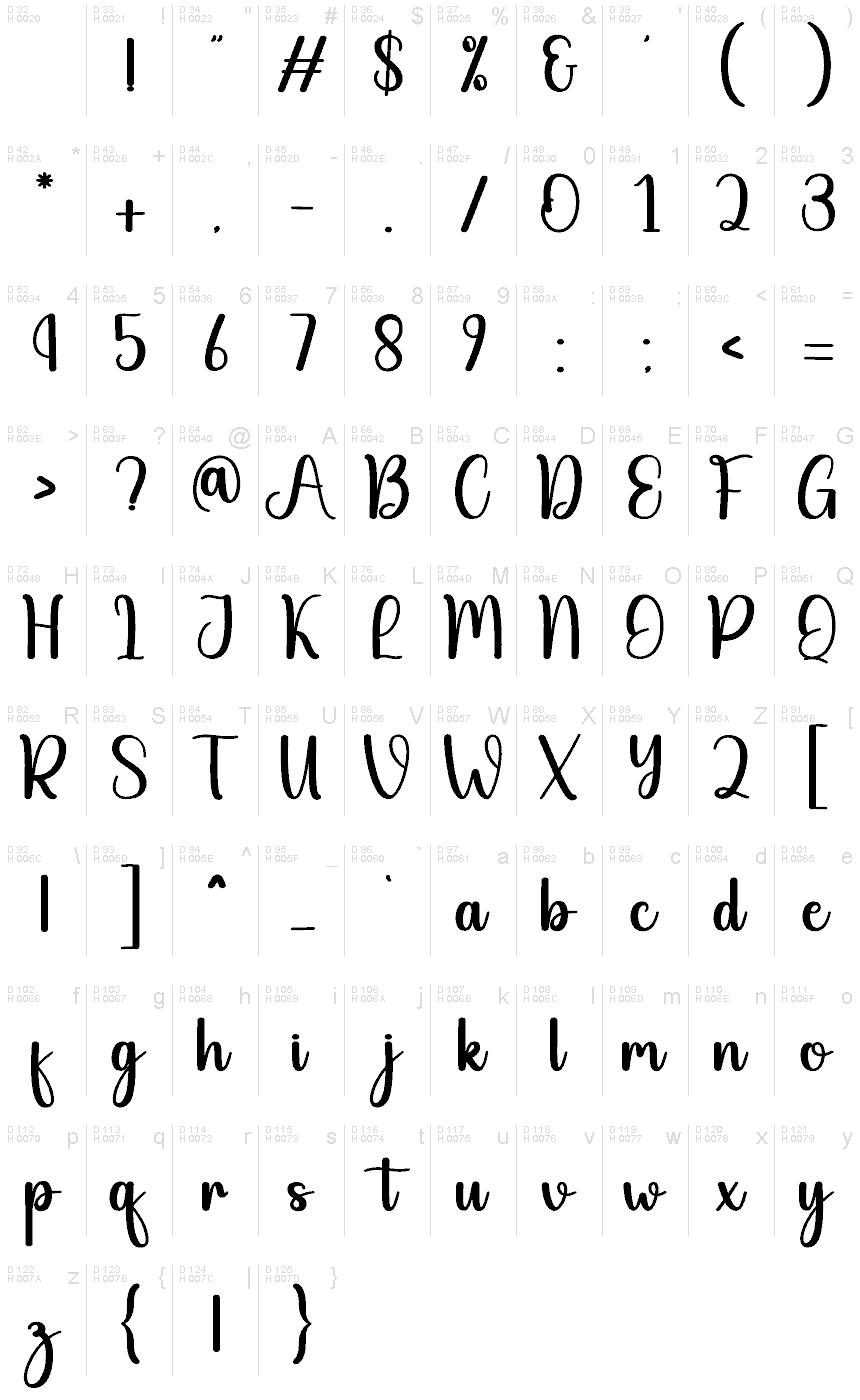
Witchy
Witchy, designed by Scratchones, is a captivating calligraphy font that exudes femininity and charm. With its semi-light weight, this font adds an elegant touch to any project.
Perfect for wedding invitations, feminine branding materials, and crafts with a cute twist. The graceful strokes of Witchy will infuse your designs with an enchanting aura. Whether you're creating a logo for a boutique beauty salon or designing personalized stationery, this font is sure to bewitch your audience.
Give your projects a touch of magic with Witchy's delicate and alluring style.
Perfect for wedding invitations, feminine branding materials, and crafts with a cute twist. The graceful strokes of Witchy will infuse your designs with an enchanting aura. Whether you're creating a logo for a boutique beauty salon or designing personalized stationery, this font is sure to bewitch your audience.
Give your projects a touch of magic with Witchy's delicate and alluring style.